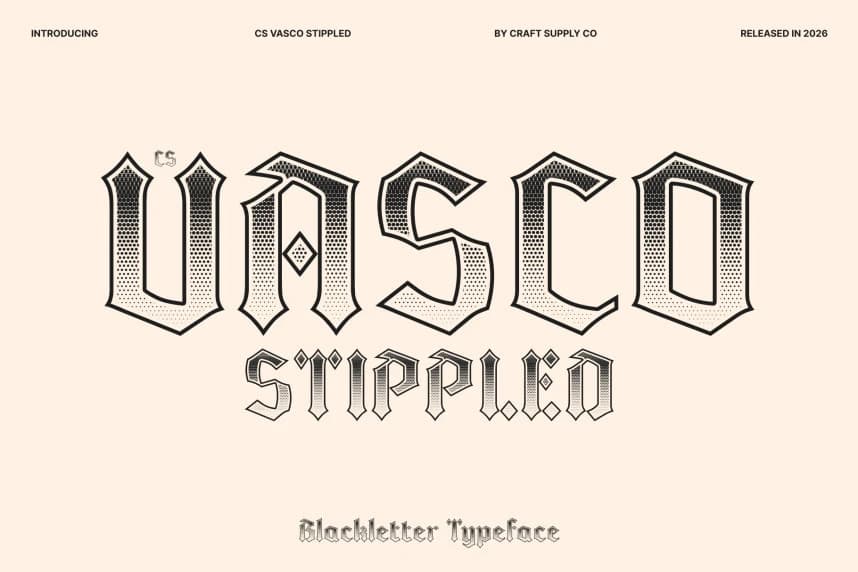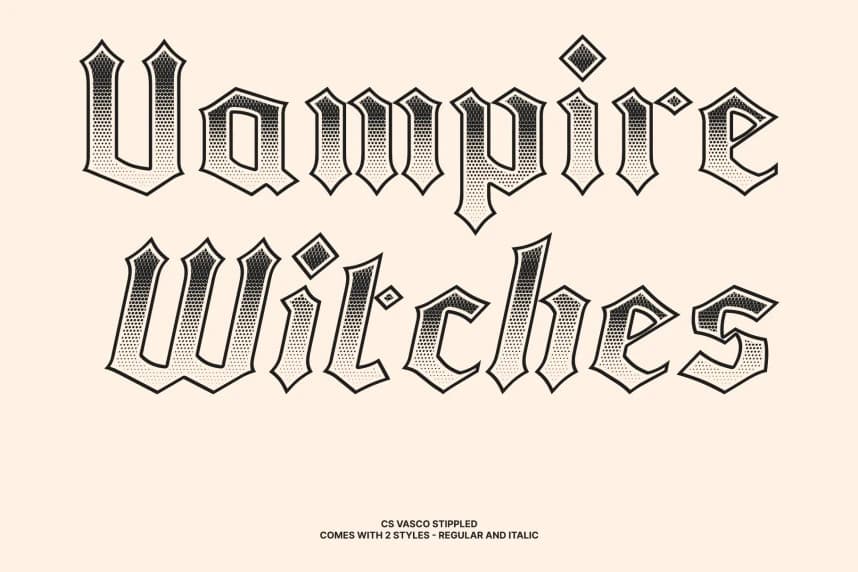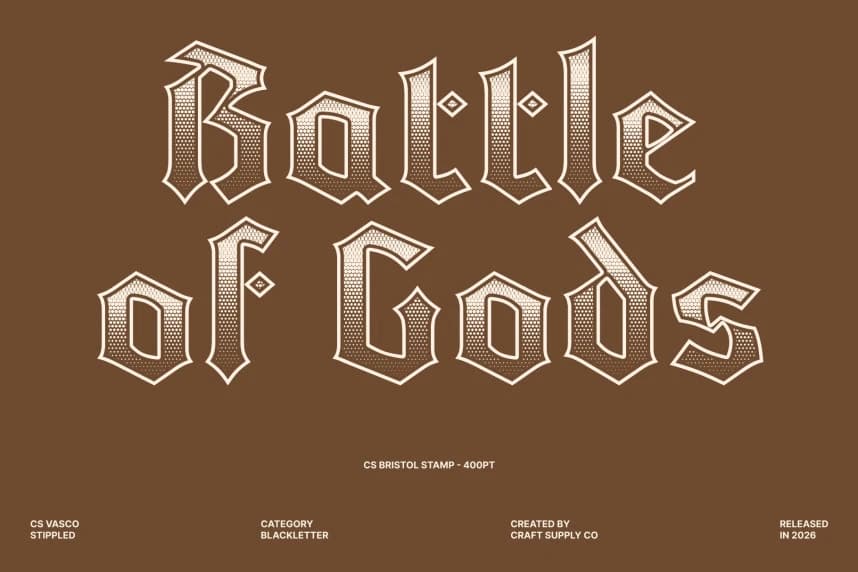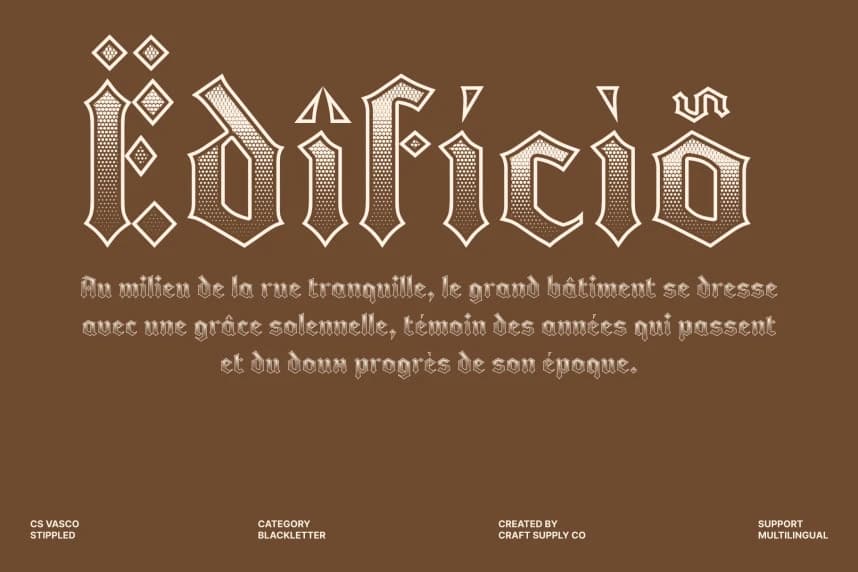
CS Vasco Stippled Font
CS Vasco Stippled Font – Blackletter Font with Timeless Textured Tradition Classic Blackletter Style with Stippled Depth. This is a striking blackletter display font that captures the elegance and authority of historical typography.